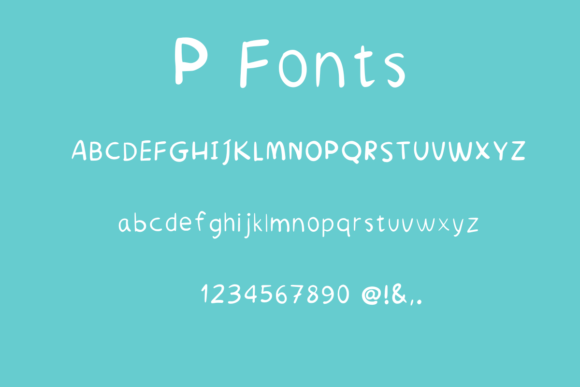
P Font
Behold, the remarkable P Font – an exquisite hand-crafted masterpiece that awakens your imagination and breathes life into your creative endeavors. Experience the pure joy of penmanship with this handwritten font, meticulously designed to evoke the warmth of human touch.
Journey into the boundless realm of expressiveness with P Font – an elegant script font that invites you to unleash your creativity. Whether you are a seasoned designer or a novice seeking to make a lasting impression, this font is your perfect companion. Witness how P Font transforms your words into captivating visuals that resonate with your audience.
P Font's versatility is a testament to its remarkable adaptability. Seamlessly blend it into your branding projects, harness its elegance in editorial layouts, or harness its digital charm in web design. Unleash your imagination and let P Font guide you through the world of packaging and signage designs.
Step into the realm of simplicity and sophistication with P Font. This font effortlessly captures the essence of effortless beauty, making it an ideal choice for those who seek clarity in their designs. Discover the power of clean lines and minimalistic appeal that effortlessly elevate your projects.
With P Font, simplicity takes center stage, allowing your designs to speak volumes without uttering a single word. Let the inherent beauty of this font captivate your audience, leaving them spellbound by its understated charm. Experience the transformative power of simplicity with P Font.